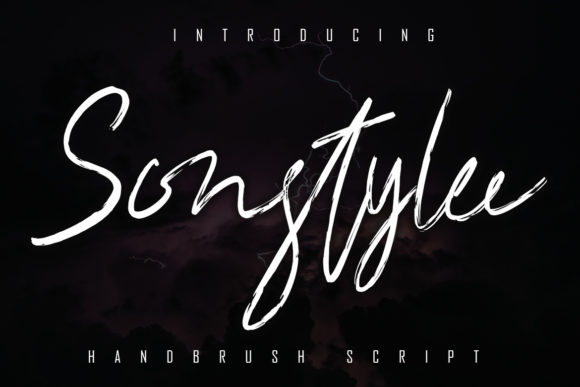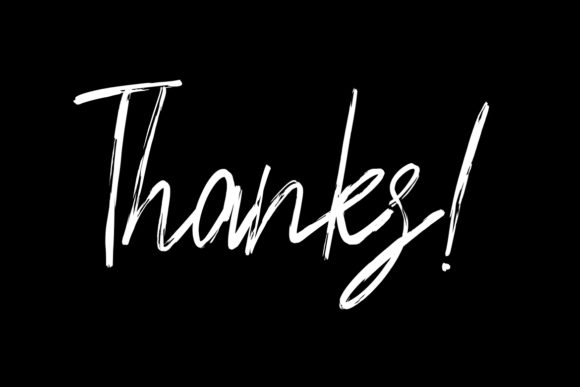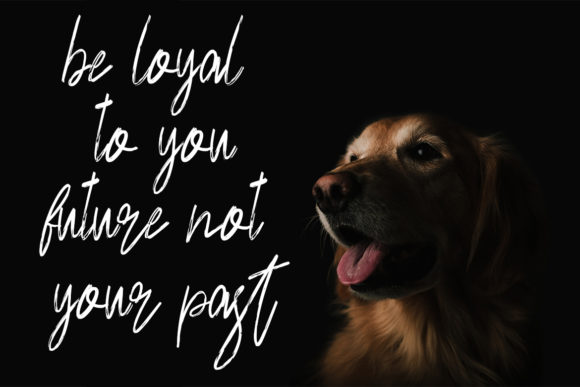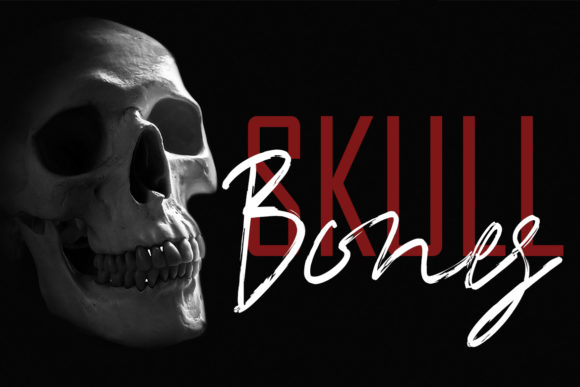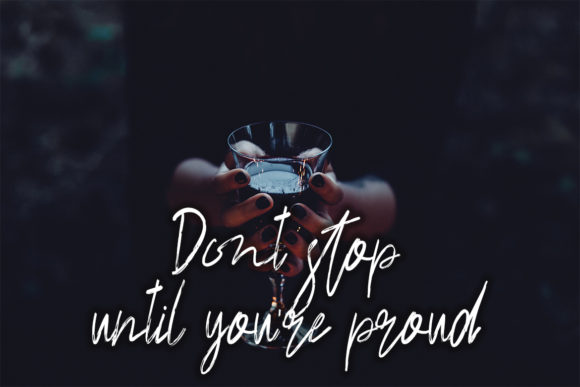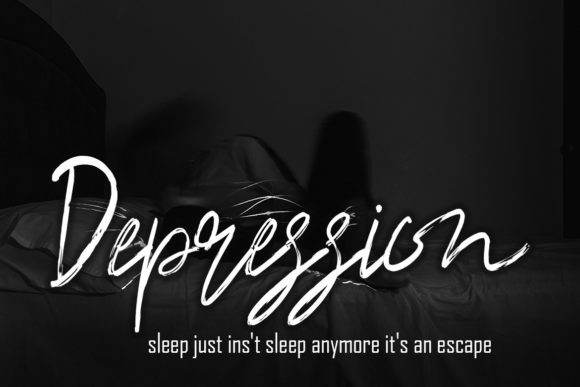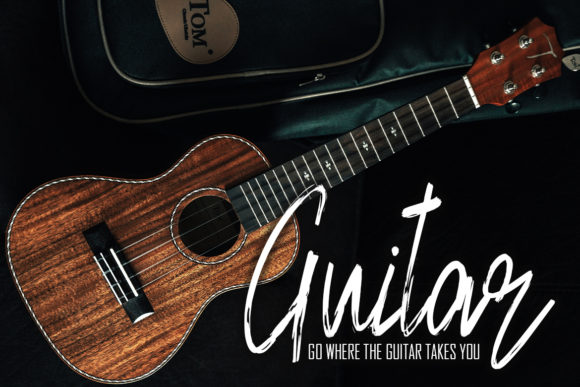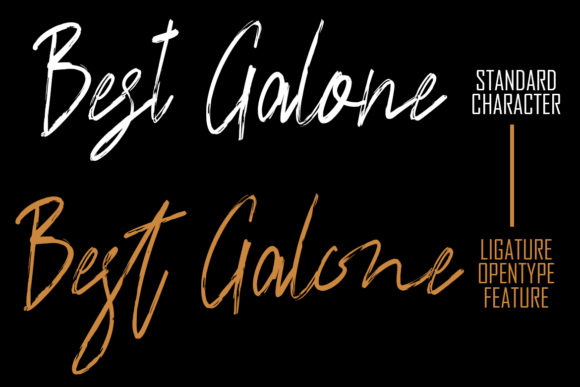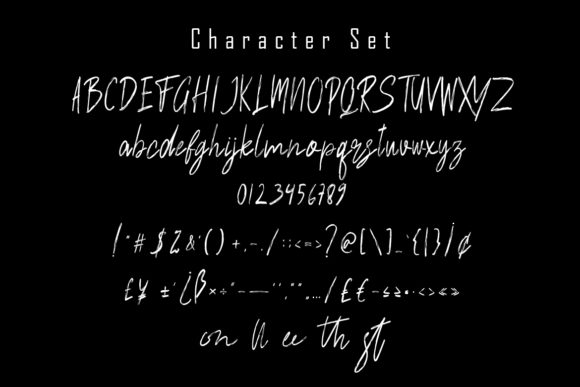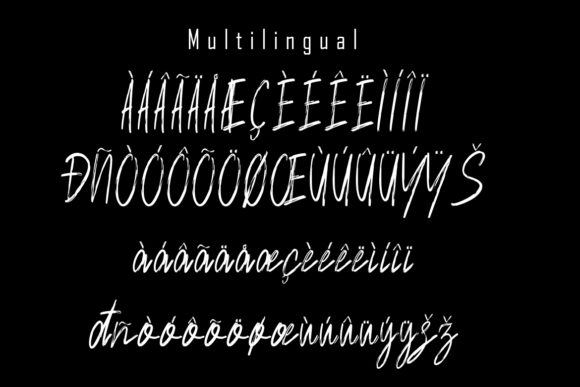
Sonstylee Font
About Sonstylee Font
Sonstylee is an incredibly relaxed handwritten font, created with the help of a lovely brush pen. Fall in love with its versatile style and use it to create gorgeous wedding invitations, beautiful stationary art, eye-catching social media posts, and much more!